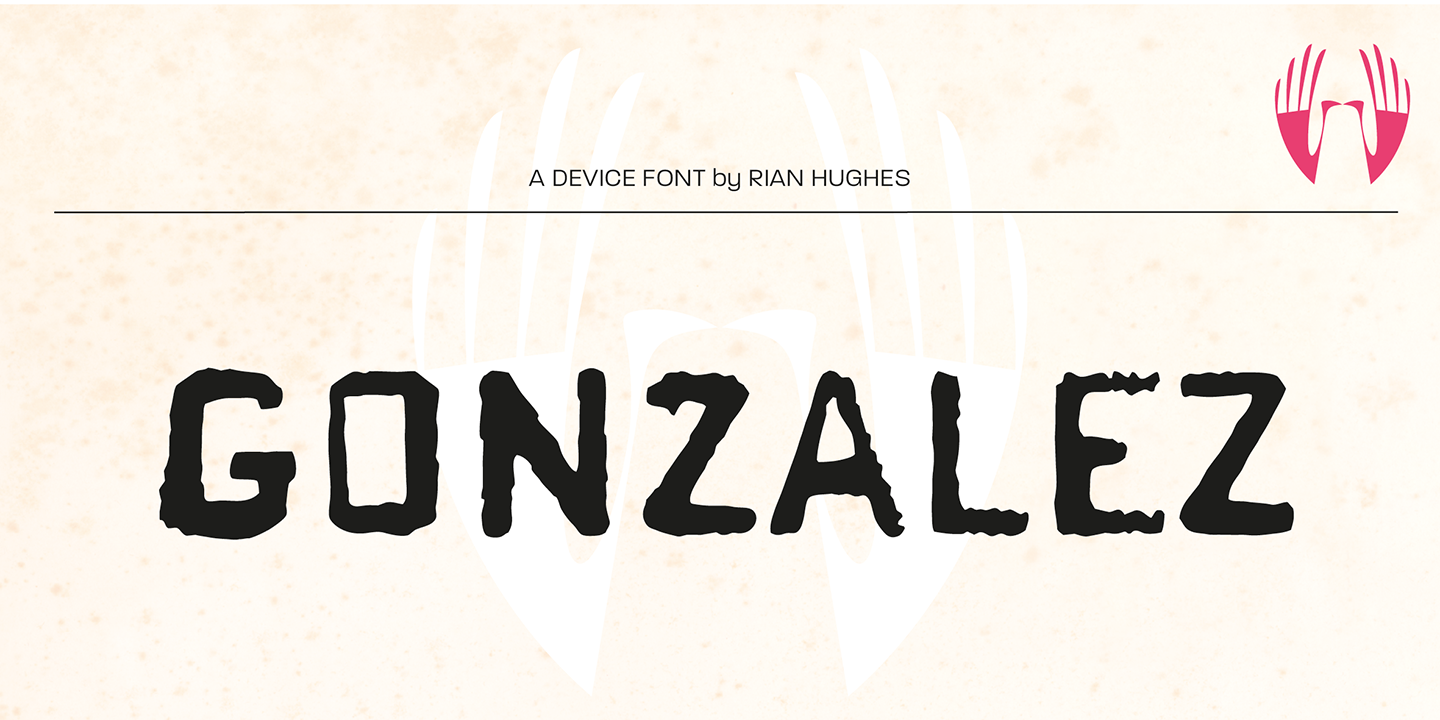
The Gonzalez Font is perfect for Latin American restaurant branding, Hispanic cultural festival posters, Spanish-language publications, Mexican cantina signage, Latin music album covers, fiesta celebration materials, authentic taco shop menus, salsa dance studio graphics, vibrant community event promotions, and passionate Latino cultural communications.
What makes the Gonzalez Font exciting is its vibrant ability to capture the passionate warmth and rich cultural heritage of Latino communities through expressive letterforms that embody the joy, family values, and artistic traditions that define Hispanic culture. This spirited typeface features passionate proportions, culturally-inspired character construction, and festive design elements that instantly convey celebration, authenticity, and the heartfelt warmth that makes Latino culture so universally beloved. Each letter radiates the infectious energy and genuine hospitality that flows through generations of proud Hispanic families and communities.
The Gonzalez Font family includes regular, bold, italic, and decorative versions, along with Latin symbols, cultural ornaments, and festive decorative elements that enhance its authentic appeal across various Hispanic and Latino design applications.
Whether you're creating Latino cultural brand identities or designing authentic Hispanic celebration materials, Gonzalez Font Free Download delivers maximum warmth and genuine Latino cultural authenticity. Its lovingly crafted expressive letterforms ensure excellent readability while maintaining that essential passionate character that speaks to Hispanic communities and Latino culture enthusiasts. The font's cultural features include contextual alternates, festive ligatures, and passionate variations that automatically create authentic Latino aesthetics. Hispanic business owners and Latino cultural organizations consistently choose this font for projects requiring genuine cultural credibility and authentic Latino appeal. The Gonzalez Font transforms ordinary text into passionate expressions of Latino pride, making it an essential component of any designer's multicultural typography collection.